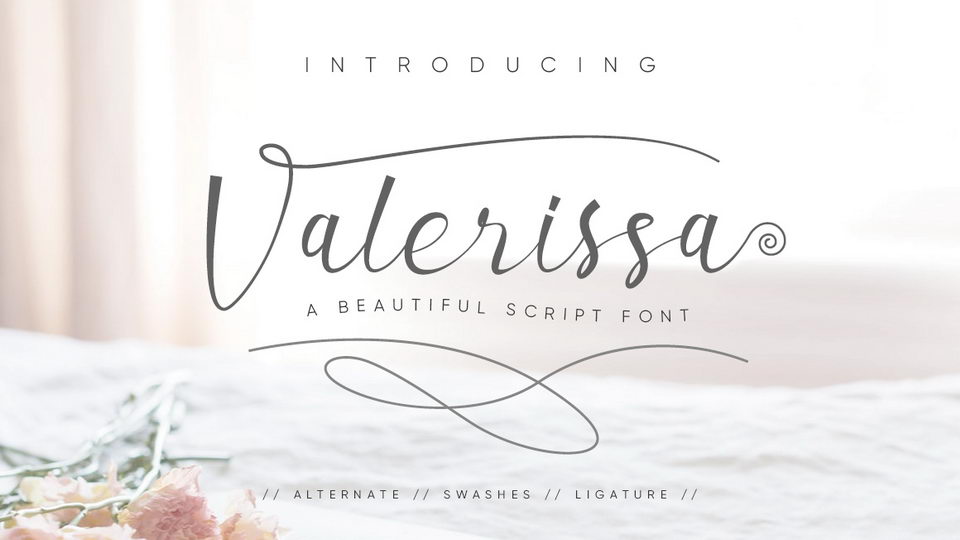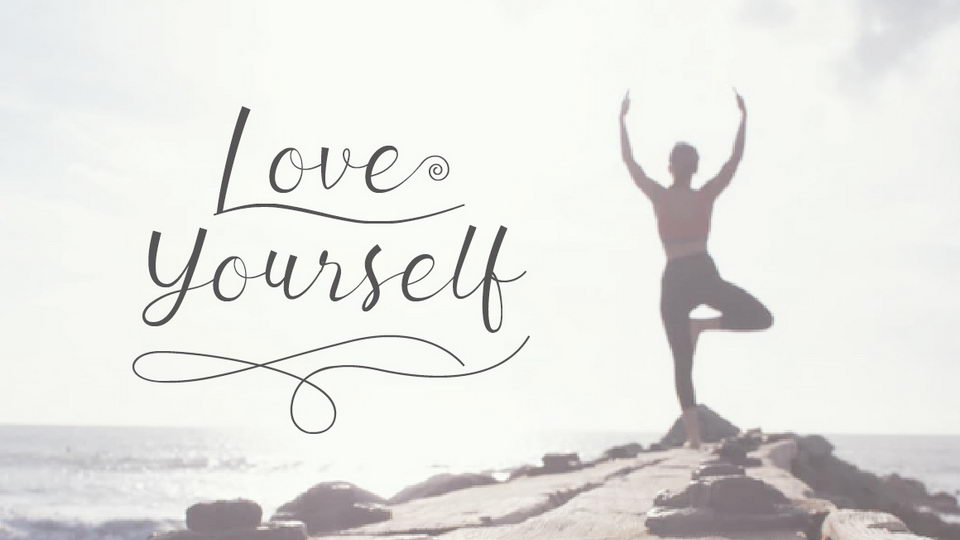
Valerissa Script a modern calligraphy handwriting font that looks beautiful and sweet. Valerissa Script includes a full set of large and attractive international letters, numbers, punctuation and ligatures. All lowercase letters include the beginning and end of the swashes. Also it has multilingual symbols. It’s suitablefor websites, invitations, posters, mockups, branding cards and more.